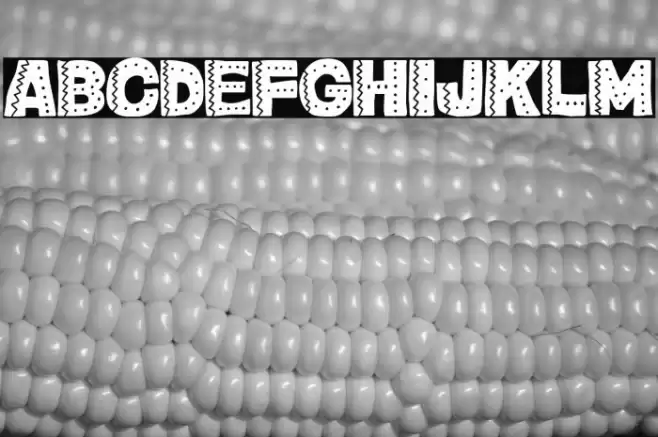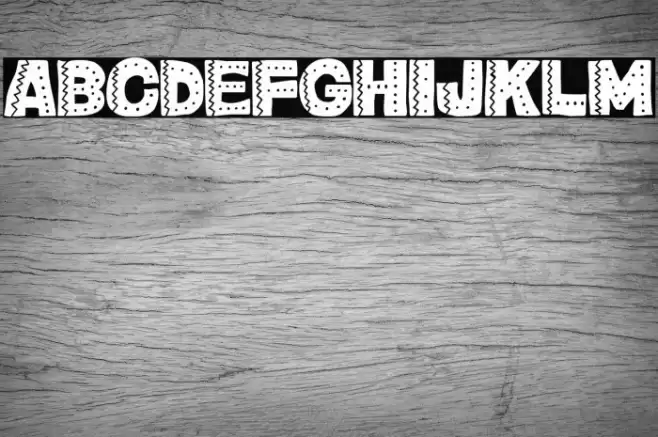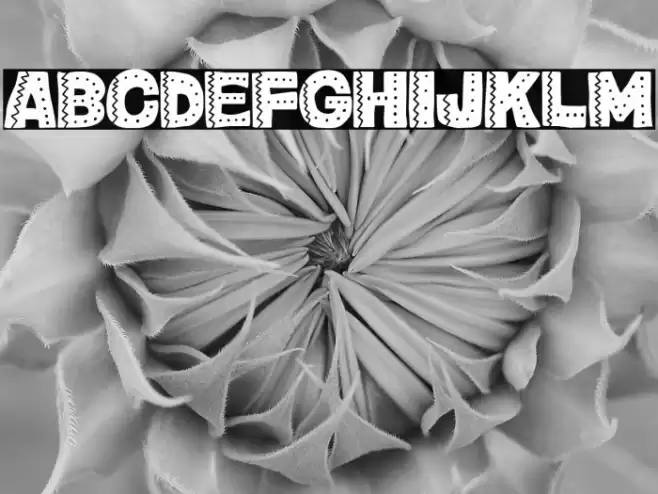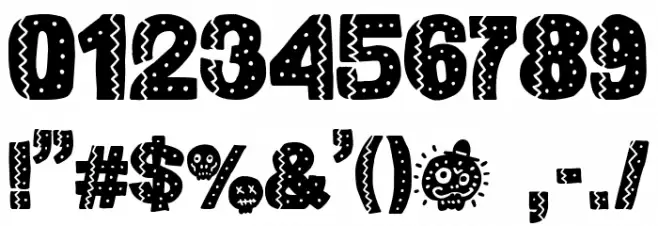
¡Viva México, cabrones! Font
¡Viva México, cabrones! Description
This font features a bold and playful design with a decorative style that incorporates intricate patterns within each character. The letters are filled with dots and zigzag lines, creating a festive and lively appearance. The uppercase and lowercase letters maintain a consistent style, while the numbers and special characters follow the same decorative theme. The overall look is vibrant and eye-catching, making it suitable for projects that require a fun and energetic vibe.
A bold, decorative font with playful patterns and a lively style from Uncategorized fonts.
- Font: ¡Viva México, cabrones!
- Proposed Projects: Ideal for party invitations, festive event posters, children's book covers, and any design needing a fun, energetic touch.
- Use Case: Headlines, Posters, Invitations